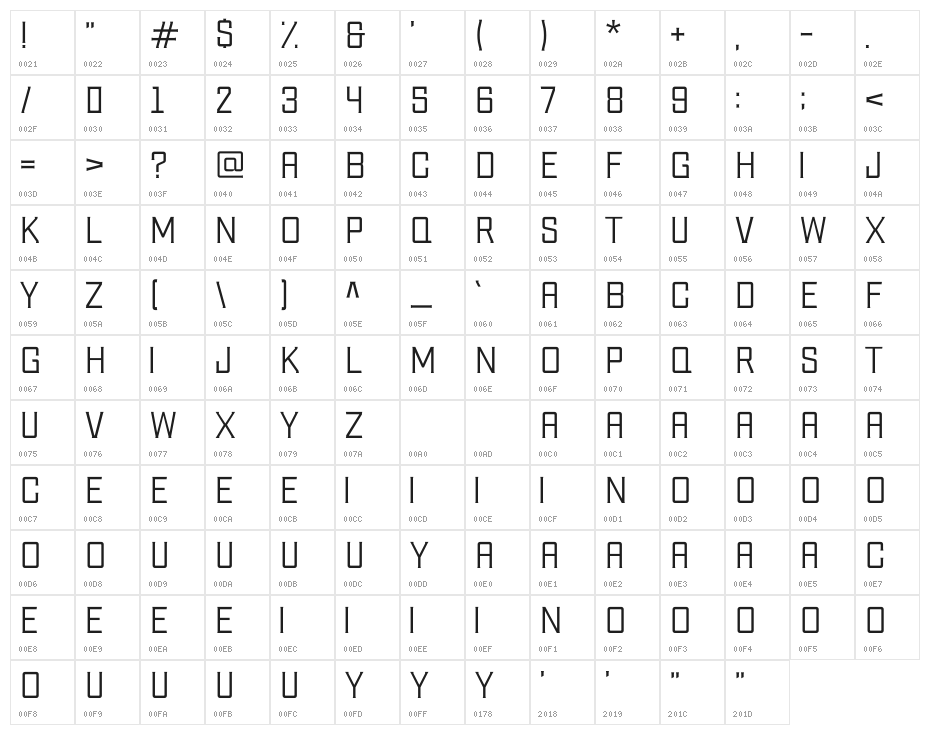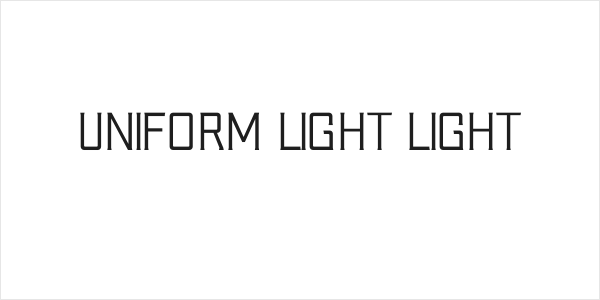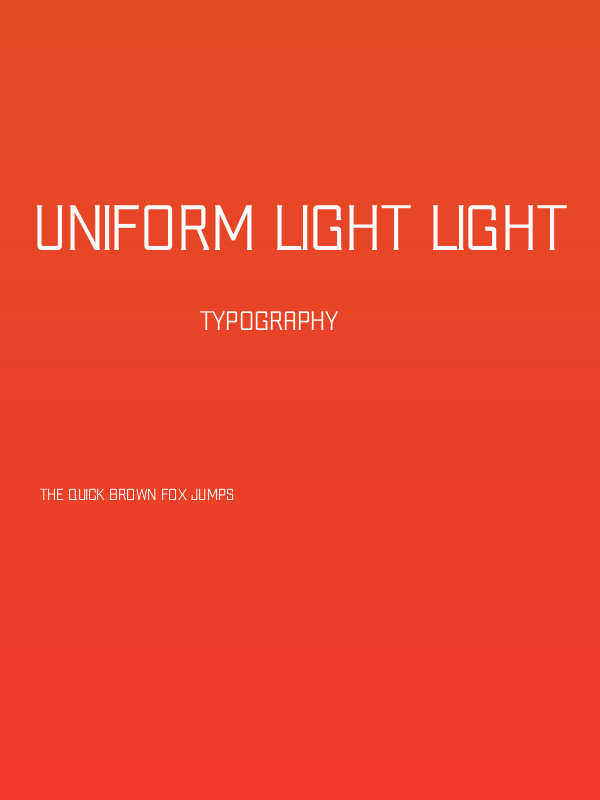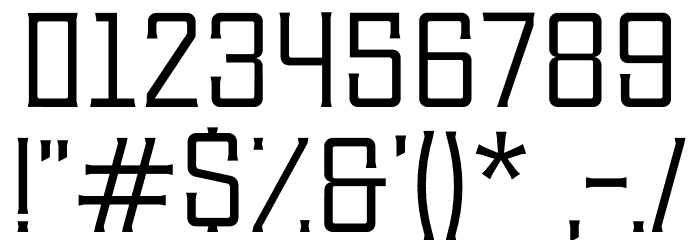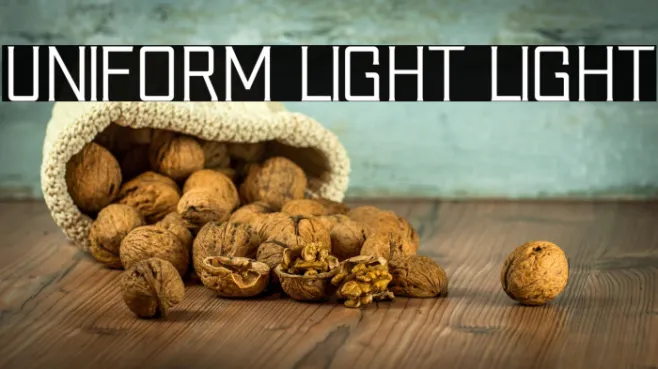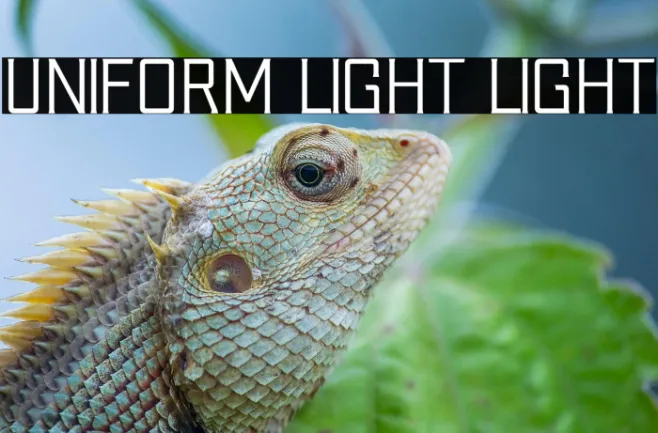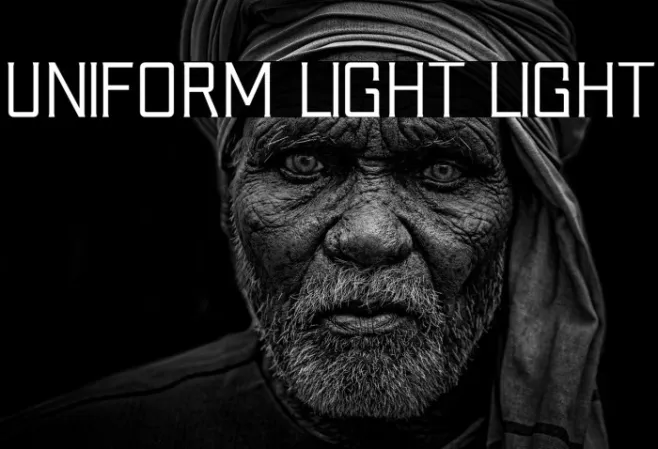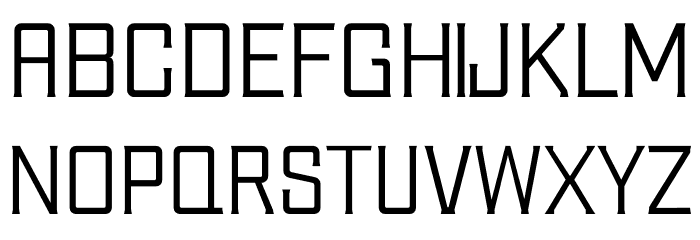
Uniform Light Light Font
Uniform Light Light Description
This font features a modern, geometric design with clean, straight lines and a uniform stroke width. The characters are constructed with a focus on simplicity and clarity, making it highly legible. The uppercase and lowercase letters maintain a consistent height and width, creating a harmonious appearance. The numerals and special characters are designed to match the overall aesthetic, ensuring a cohesive look across all elements. The font's minimalistic style is suitable for a variety of applications, offering a professional and contemporary feel.